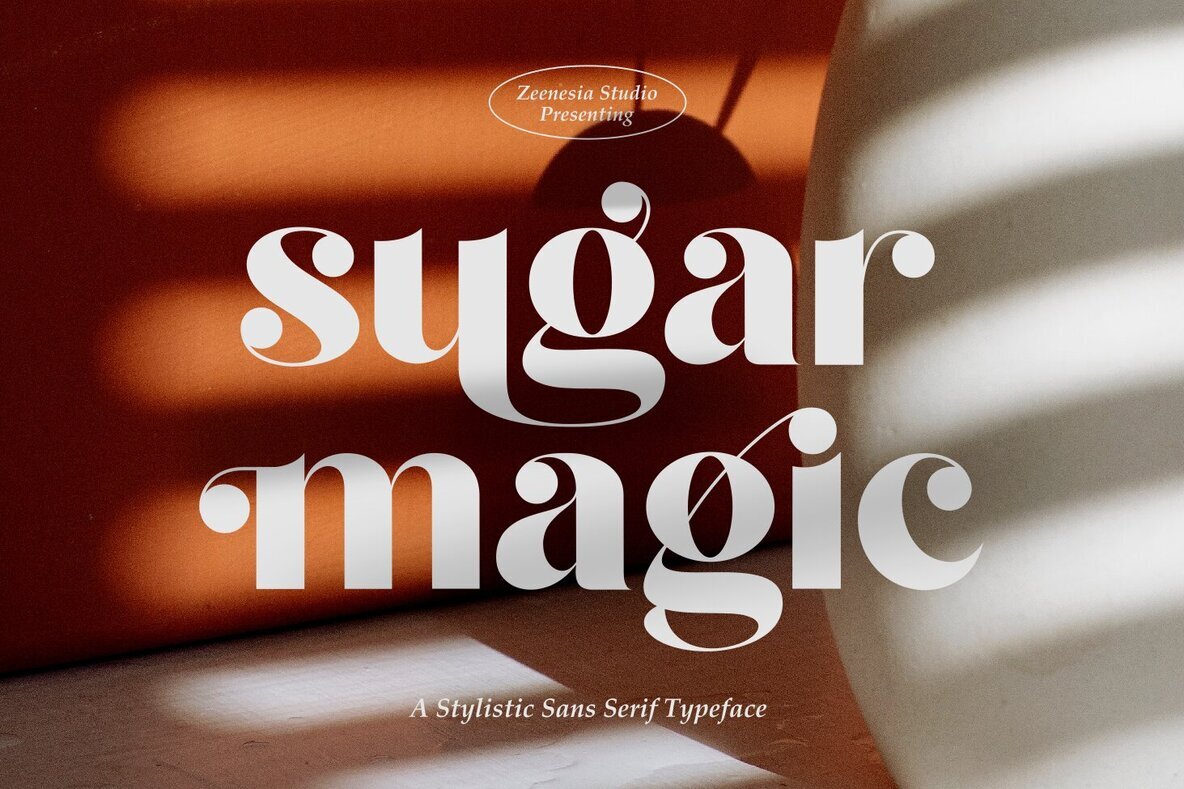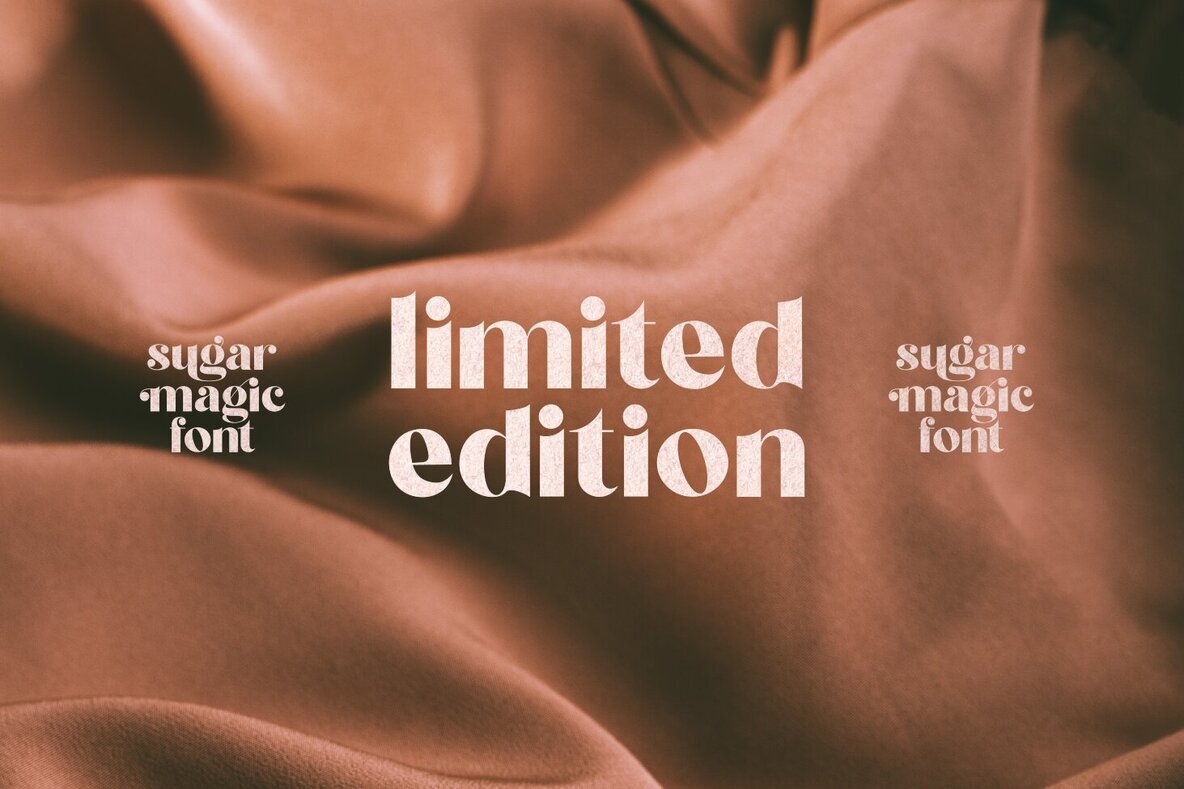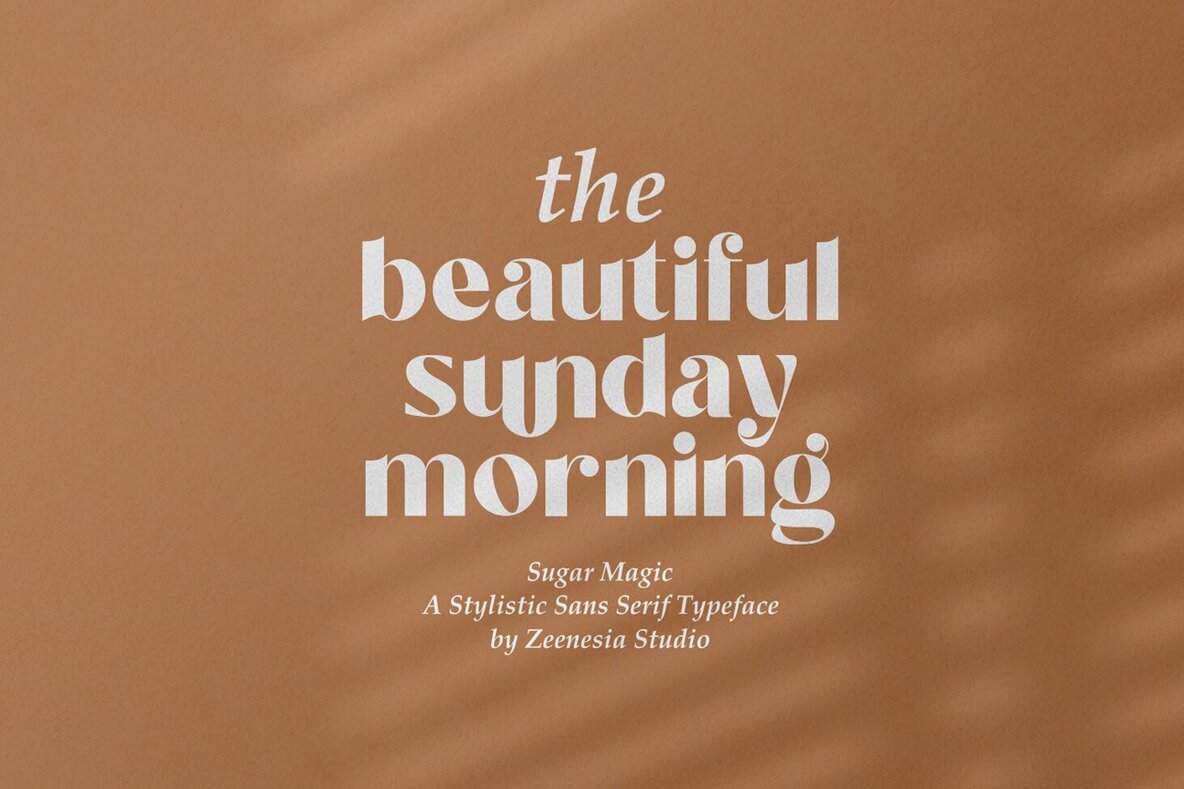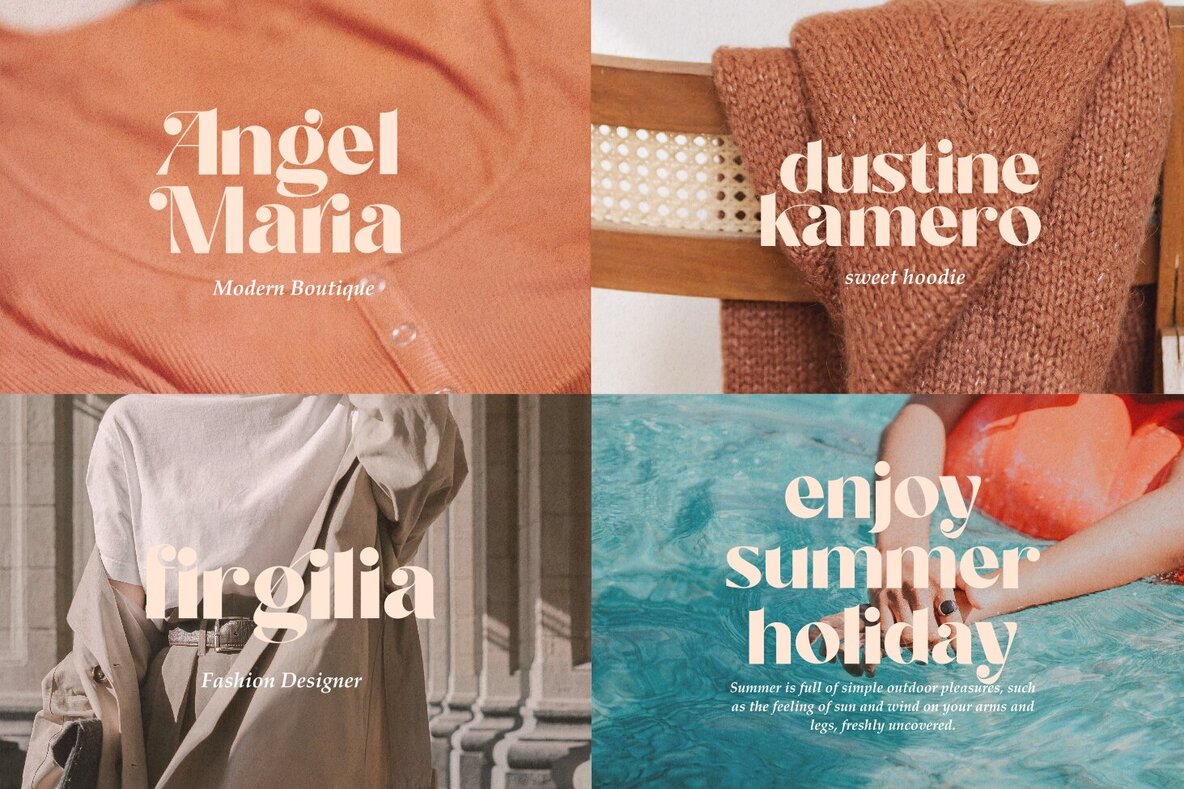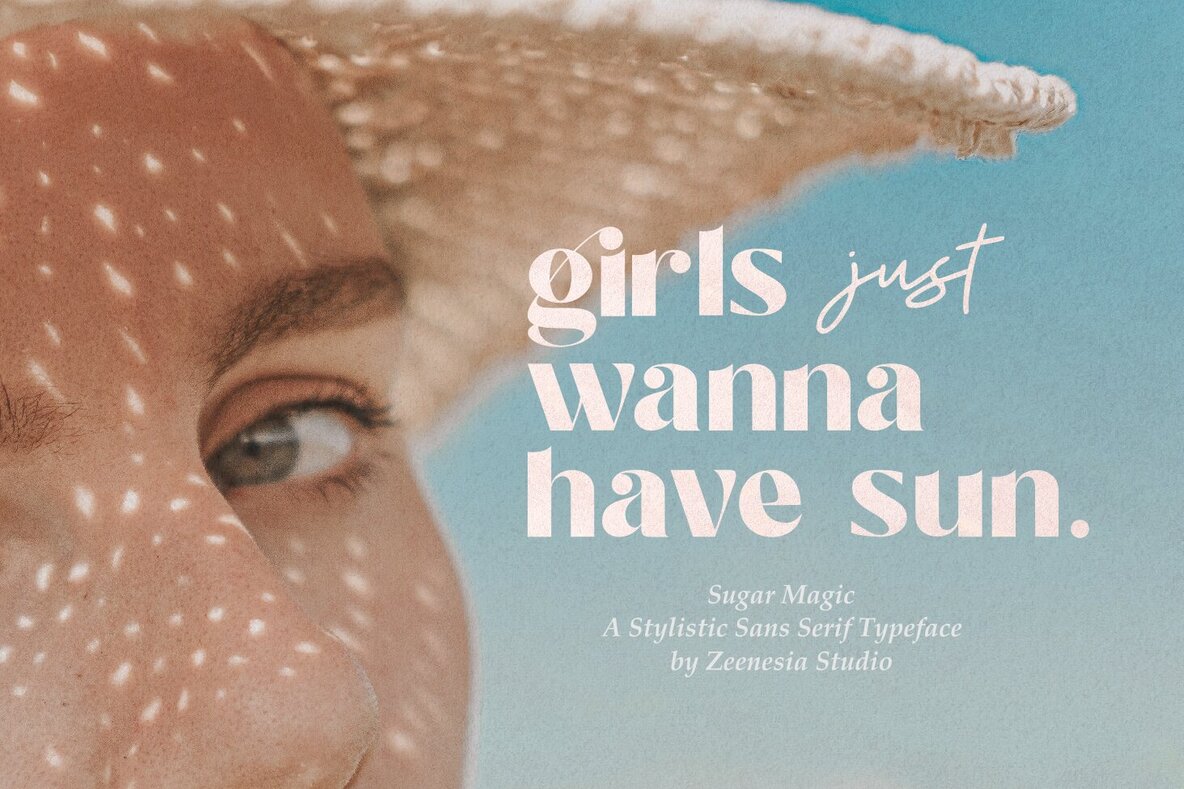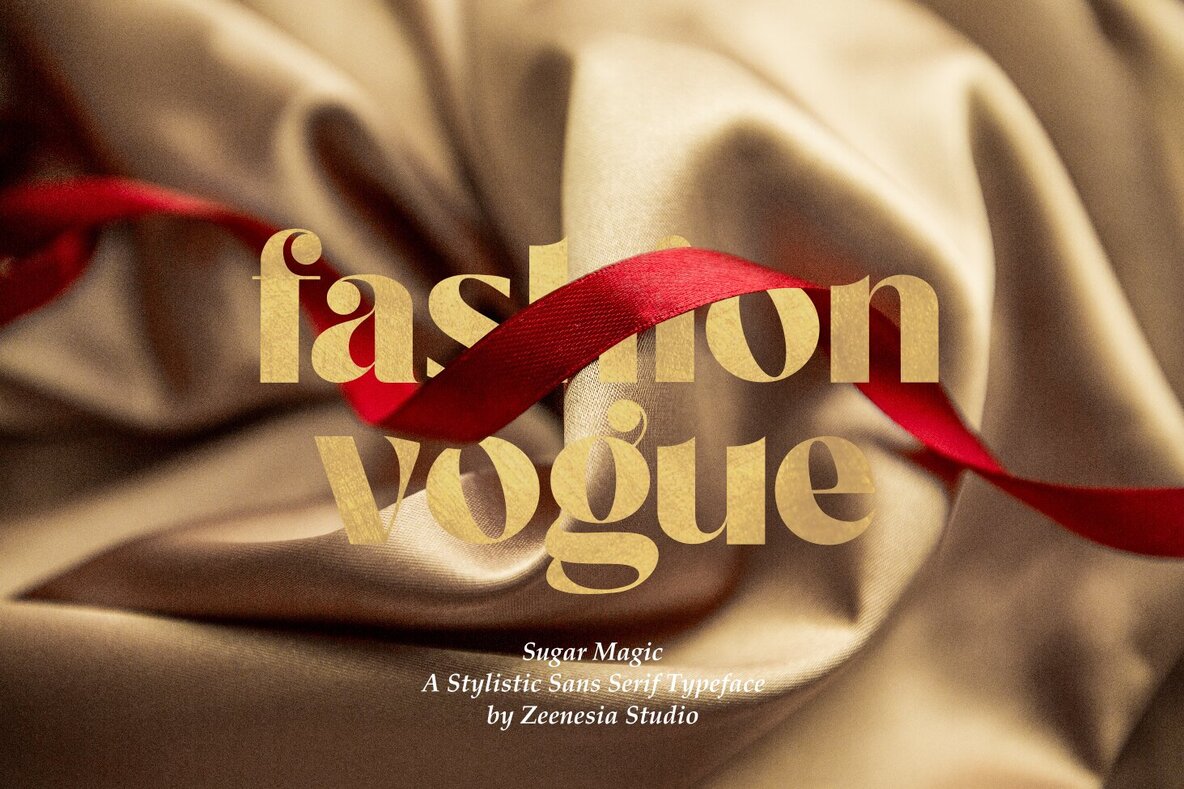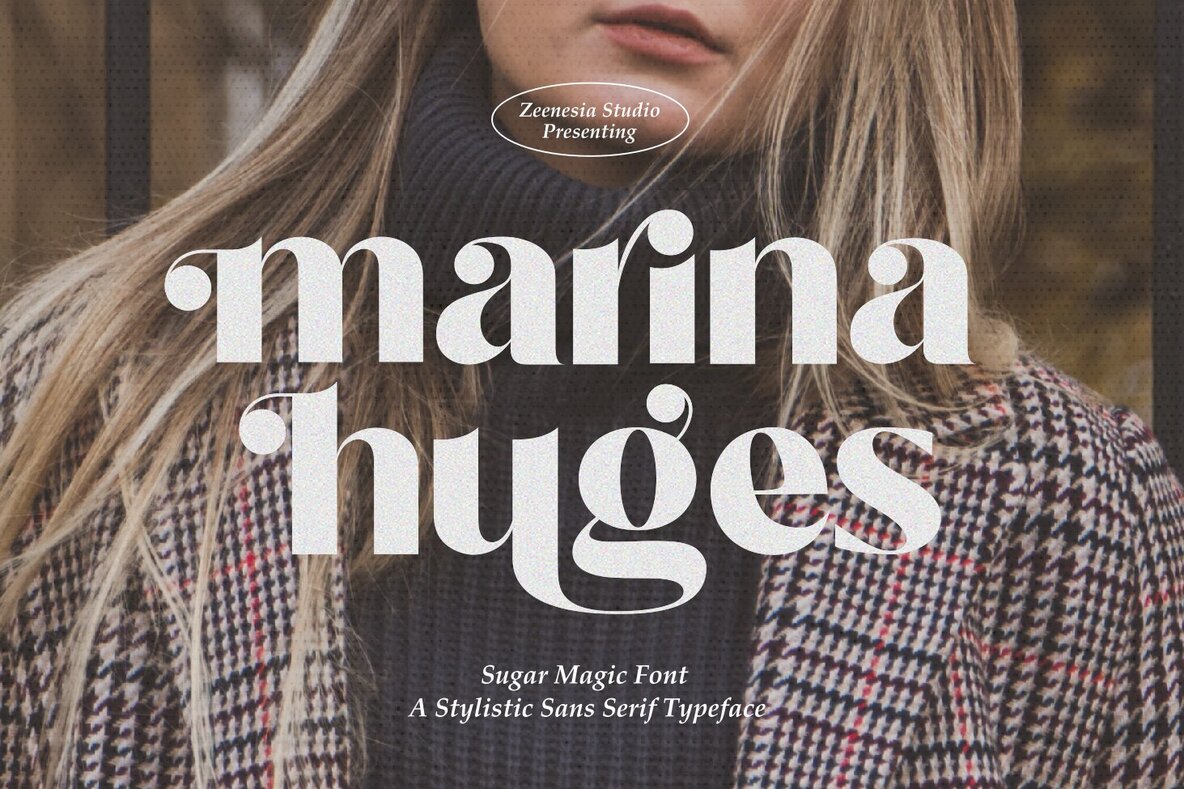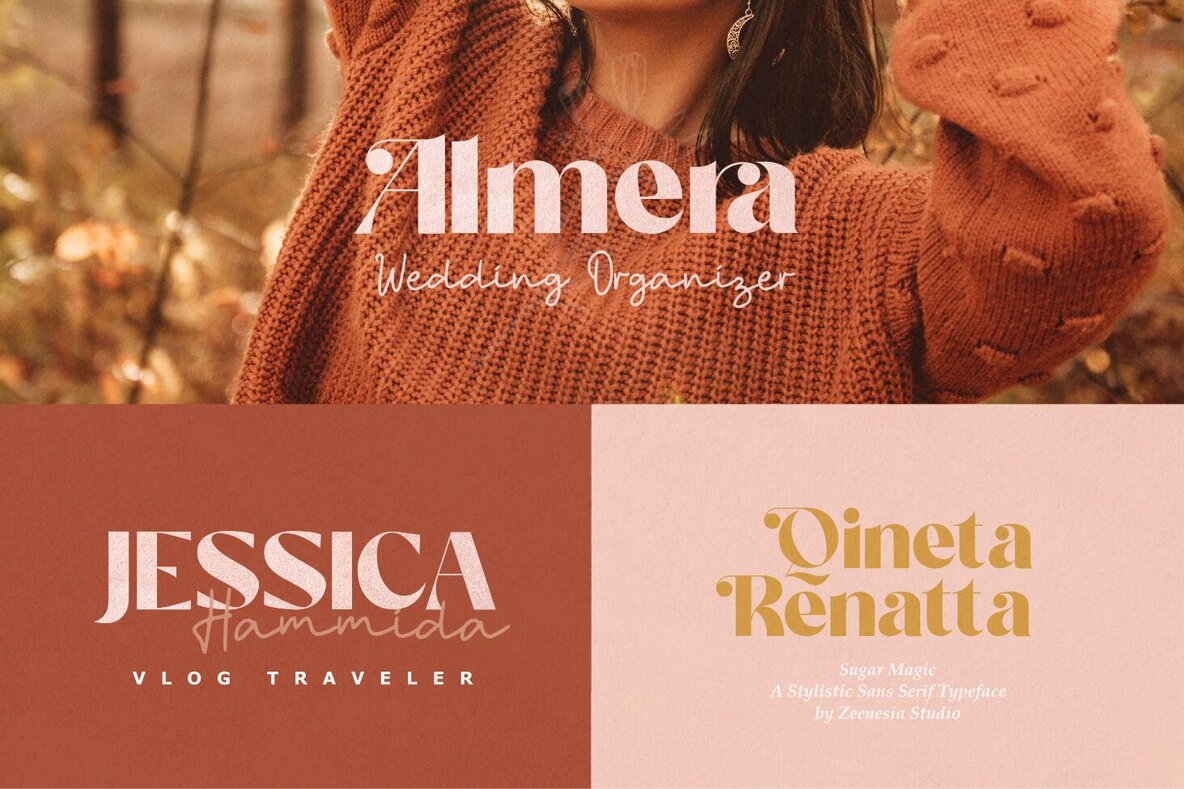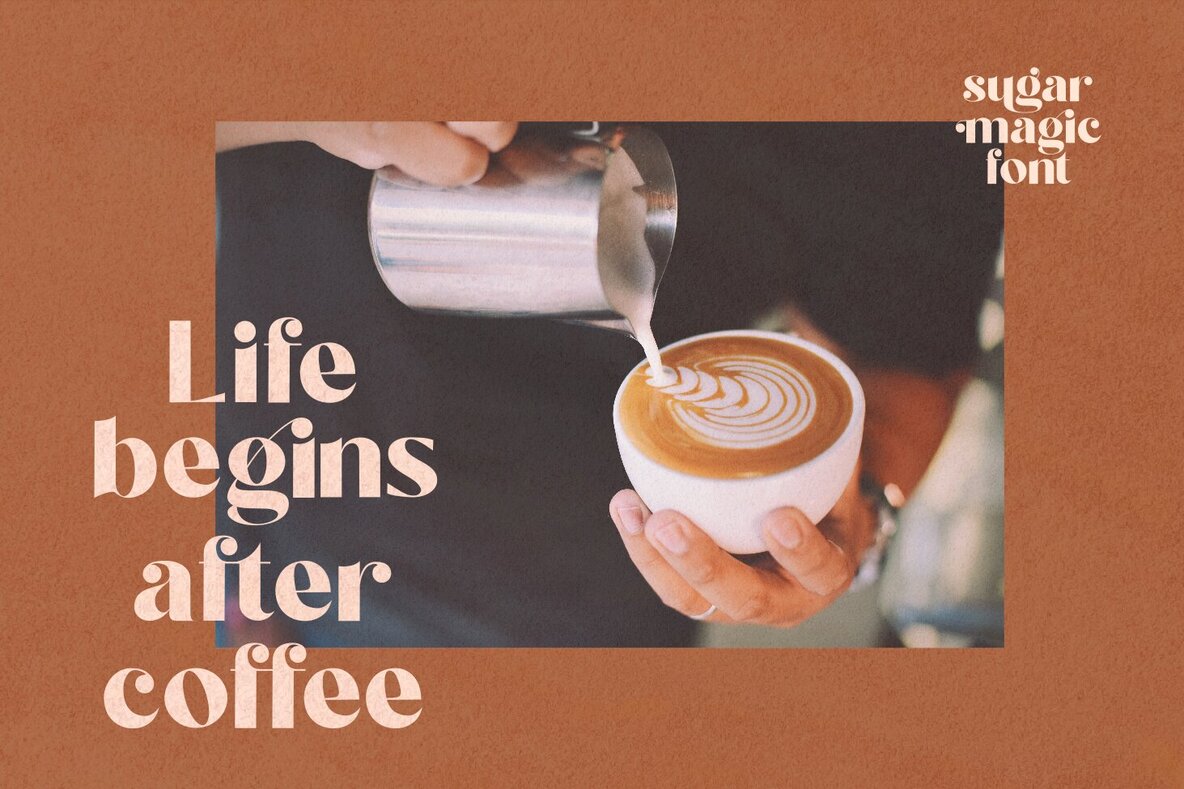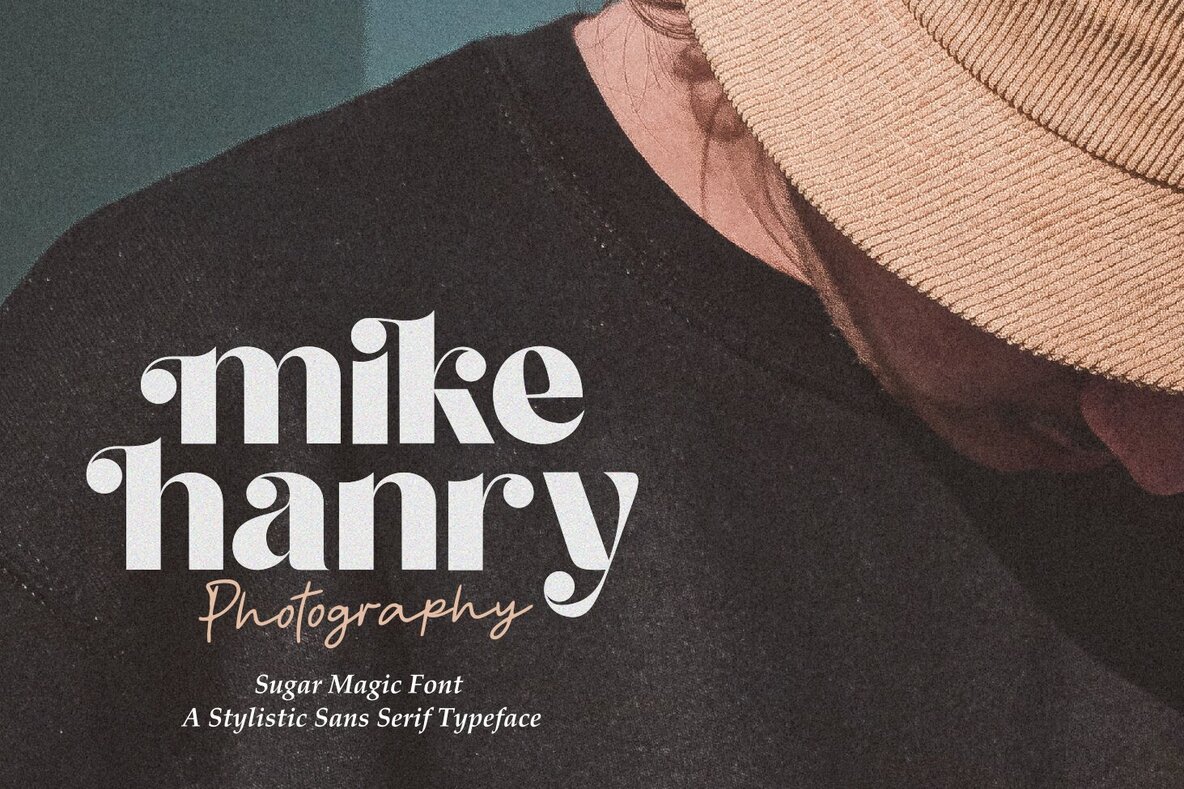
Sugar Magic Font
Sugar Magic Regular
Sugar Magic by Zeenesia Studio offers a contemporary and elegant sans-serif design, making it an excellent choice for various applications. This font perfectly complements advertising, branding, logotypes, packaging, titles, headlines, and editorial designs. We hope you enjoy using Sugar Magic. Please feel free to share your thoughts or feedback. Thank you for choosing our font!Sugar Magic: Modern Elegance in Sans-Serif